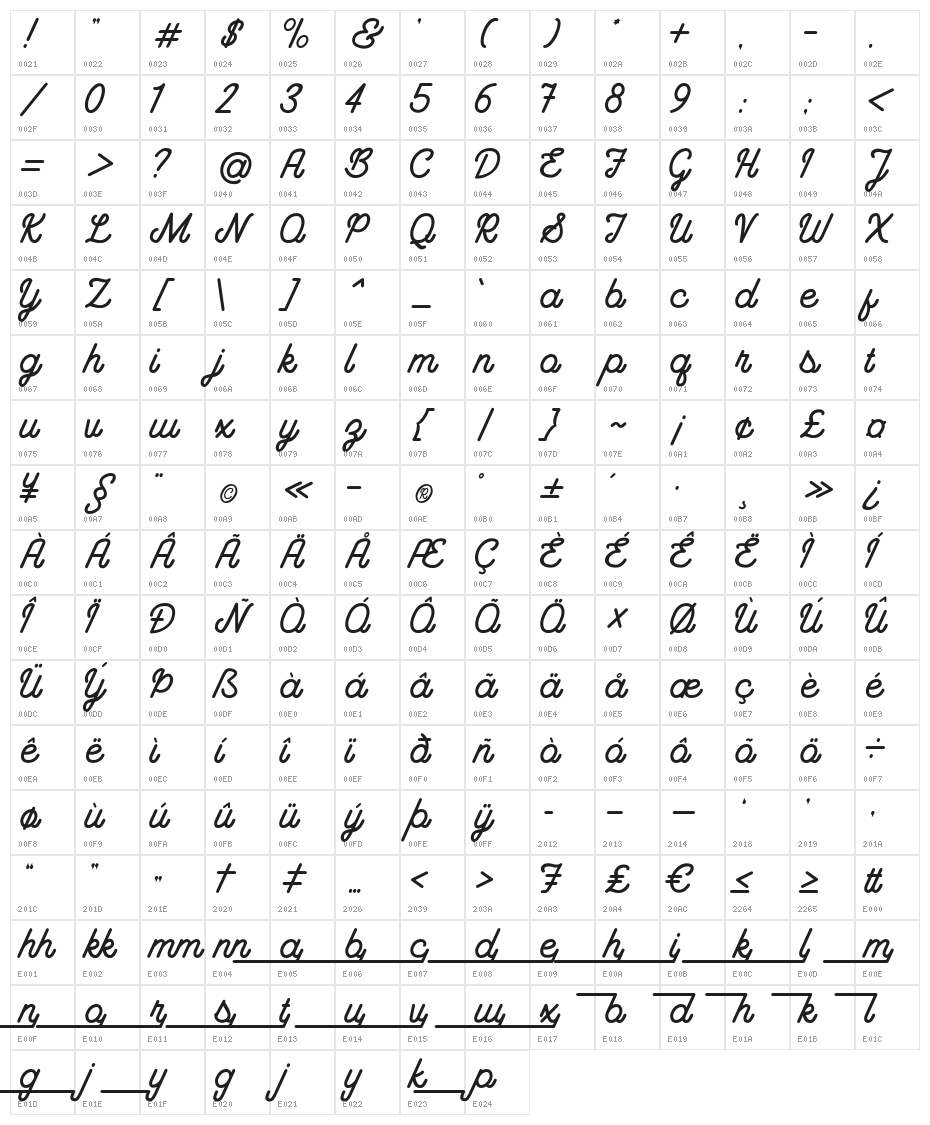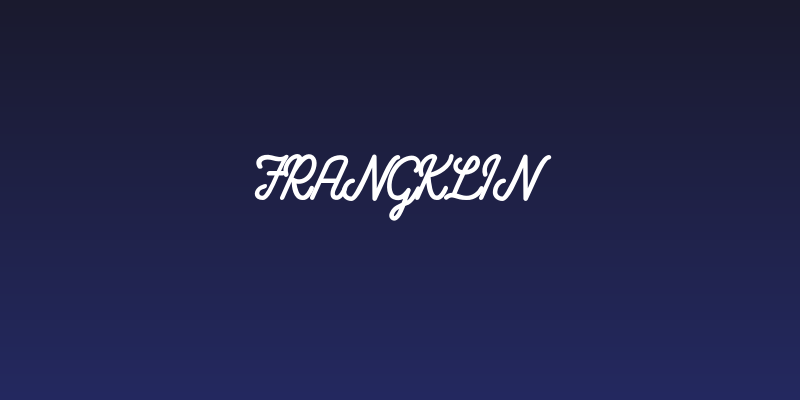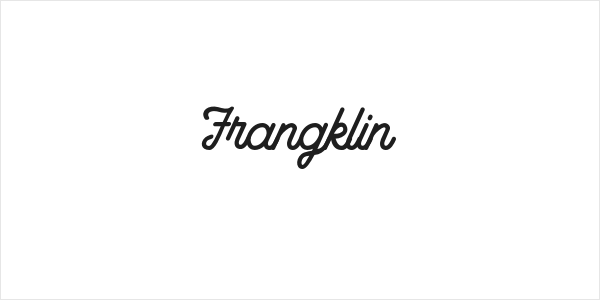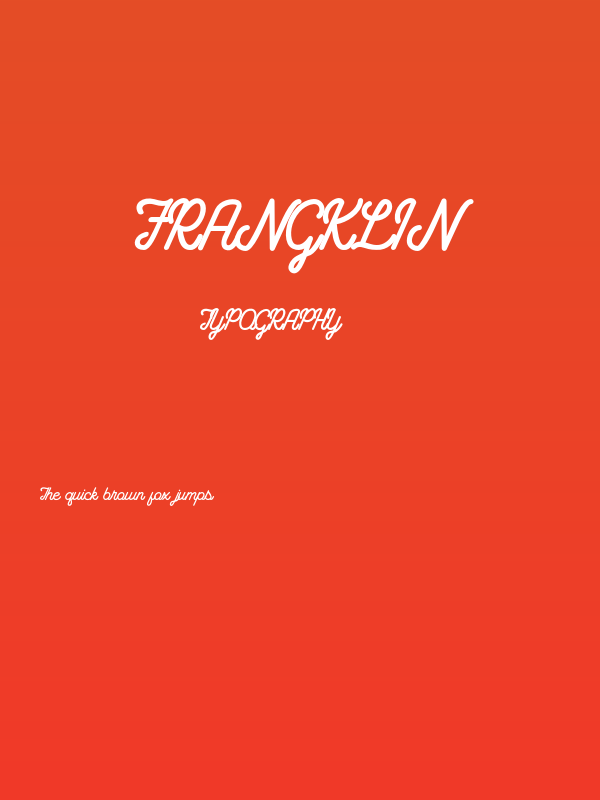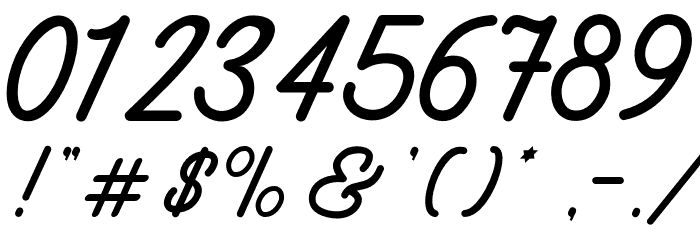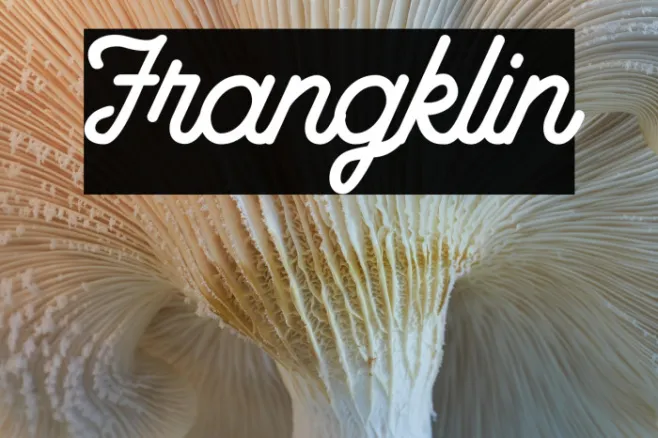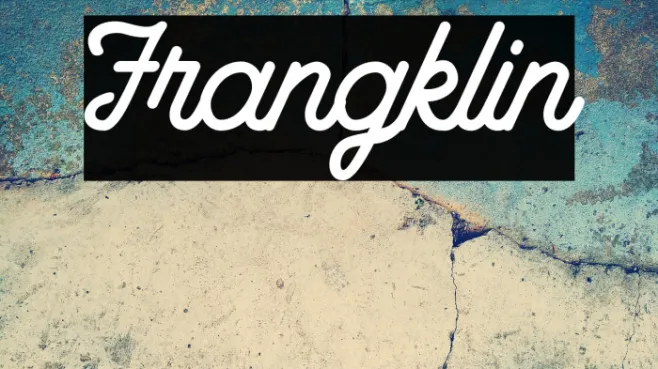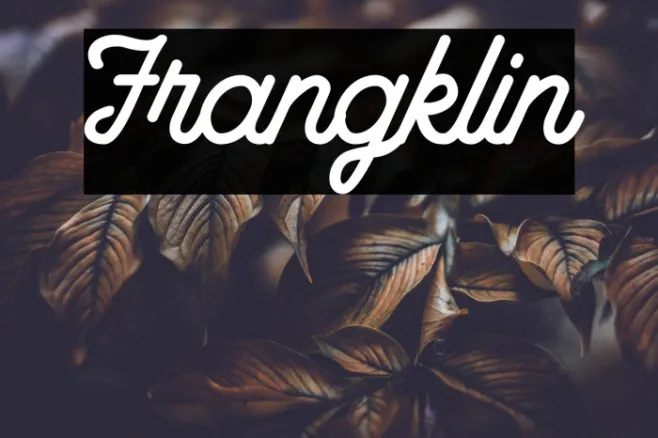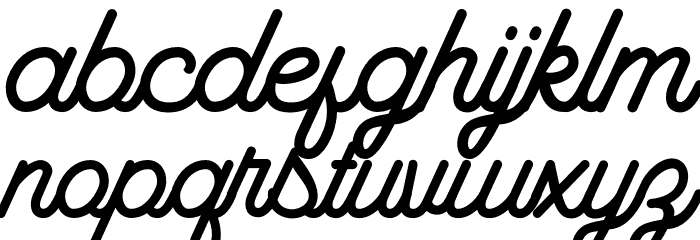
Frangklin Font
Frangklin Description
This font features a flowing, cursive style that mimics elegant handwriting. The characters are interconnected, creating a seamless and fluid appearance. The uppercase letters are bold and prominent, while the lowercase letters maintain a consistent and graceful flow. The numerals and special characters are designed to match the overall script style, ensuring uniformity across all elements. This font exudes a sense of sophistication and charm, making it suitable for projects that require a personal touch.
| Proposed Projects | Ideal for wedding invitations, greeting cards, personal branding, and elegant packaging designs. |